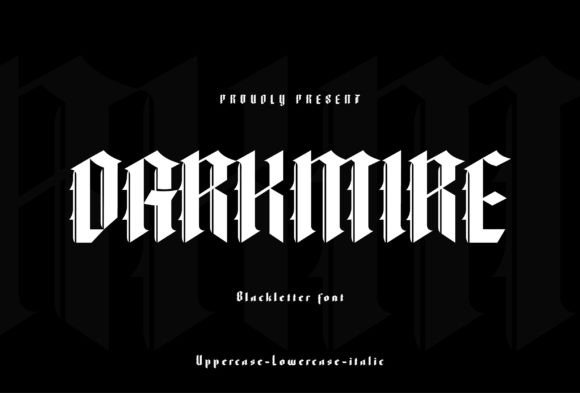
Darkmire Font: A Majestic Blackletter Typeface for Dramatic Designs
In the realm of typography, few fonts command attention with the same level of boldness and sophistication as Darkmire. This stunning blackletter font is a true masterpiece, designed to leave a lasting impression with its striking appearance and intricate details. Whether you’re a designer seeking to add a touch of drama and gravitas to your project or a brand looking to make a bold statement, Darkmire is an exceptional choice.
What is Darkmire Font?
Darkmire is a blackletter font that embodies the essence of medieval typography, with a modern twist. Its ornate letterforms and complex details create a powerful visual impact that is both impressive and unforgettable. The font’s bold and striking design makes it perfect for designs that require a sense of luxury, drama, and sophistication.
Key Features of Darkmire Font
- Ornate Letterforms: Darkmire’s letterforms are intricately designed with ornate details, creating a sense of luxury and sophistication.
- Intricate Details: The font features complex details, including flourishes and swashes, that add to its dramatic appearance.
- Bold and Striking Design: Darkmire’s bold design makes it perfect for headlines, titles, and other display text.
- Blackletter Style: The font is rooted in traditional blackletter typography, with a modern twist.
Perfect Use Cases for Darkmire Font
Darkmire is an incredibly versatile font, suitable for a wide range of design projects. Here are some perfect use cases for this majestic font:
- Logos and Branding: Darkmire’s bold and striking design makes it perfect for logos and branding projects that require a sense of luxury and sophistication.
- Posters and Flyers: The font’s dramatic appearance is ideal for posters and flyers that need to grab attention.
- Headings and Titles: Darkmire is perfect for headings and titles that require a sense of drama and gravitas.
- Packaging Design: The font’s ornate details and bold design make it suitable for packaging design projects that require a sense of luxury.
Typography Tips for Using Darkmire Font
To get the most out of Darkmire, here are some typography tips to keep in mind:
- Use it sparingly: Due to its bold and striking design, it’s best to use Darkmire sparingly to avoid overwhelming the reader.
- Pair it with a simple font: Pair Darkmire with a simple font to create visual contrast and make your design more readable.
- Experiment with colors: Darkmire looks great in a range of colors, so don’t be afraid to experiment and find the perfect hue for your design.
Font Pairing Suggestions for Darkmire
To create a harmonious design, it’s essential to pair Darkmire with a font that complements its style. Here are some font pairing suggestions:
- Open Sans: A clean and simple sans-serif font that provides a nice contrast to Darkmire’s ornate design.
- Lato: A modern sans-serif font with a clean and elegant design that pairs well with Darkmire.
- Merriweather: A classic serif font that complements Darkmire’s luxurious and sophisticated feel.
In conclusion, Darkmire is a majestic blackletter font that is sure to make a statement in any design project. Its bold and striking design, ornate letterforms, and intricate details create a powerful visual impact that is both impressive and unforgettable. With its versatility and range of use cases, Darkmire is an excellent addition to any designer’s font library.